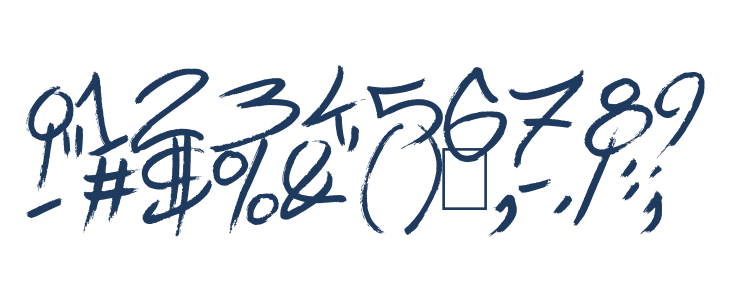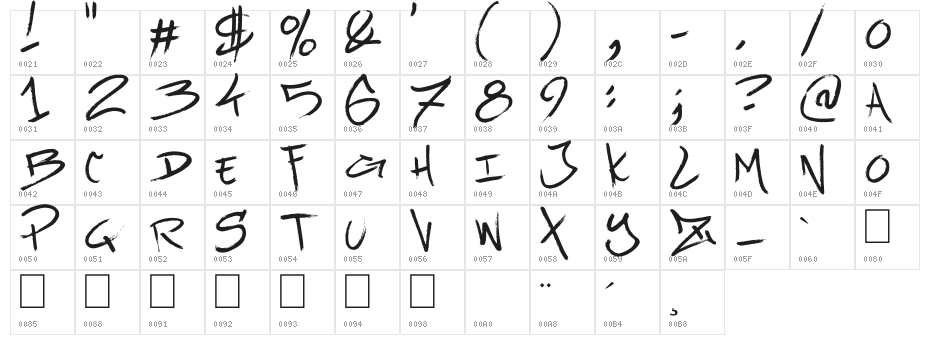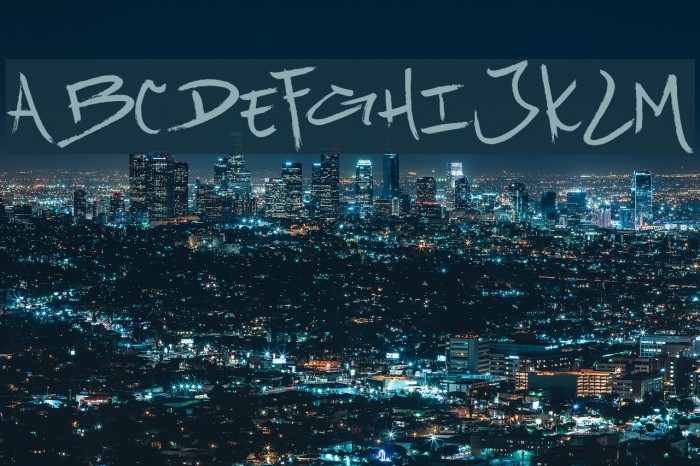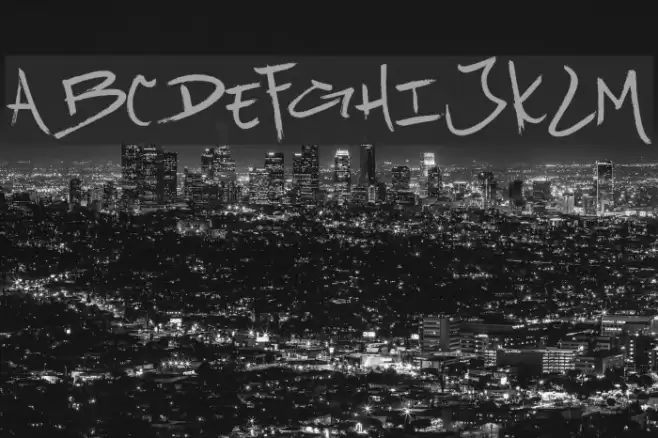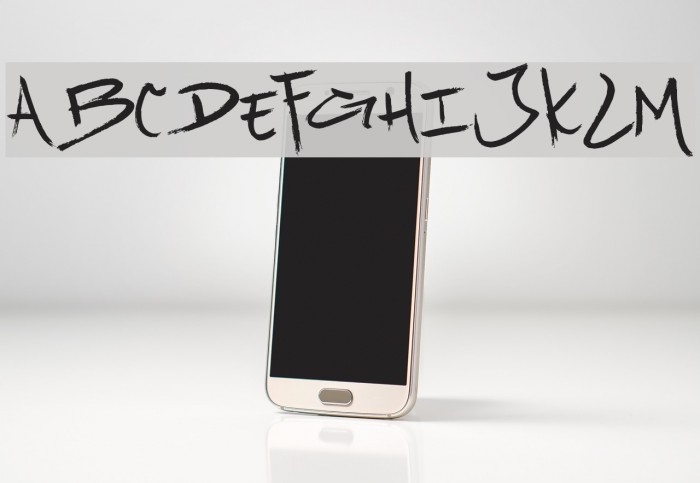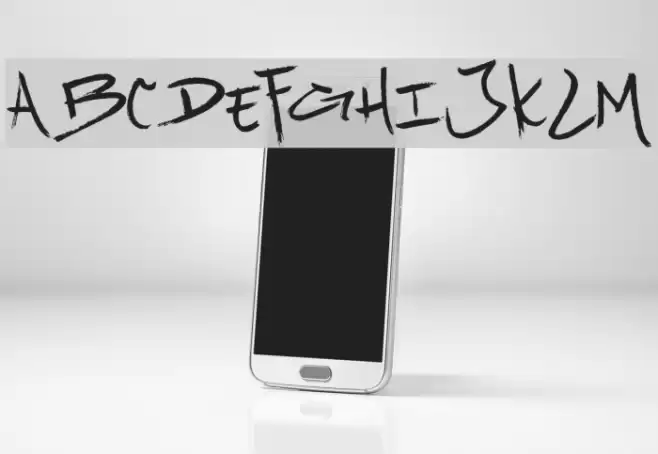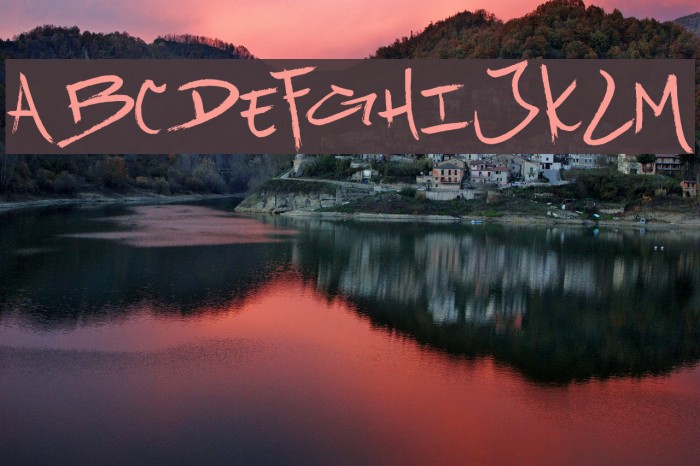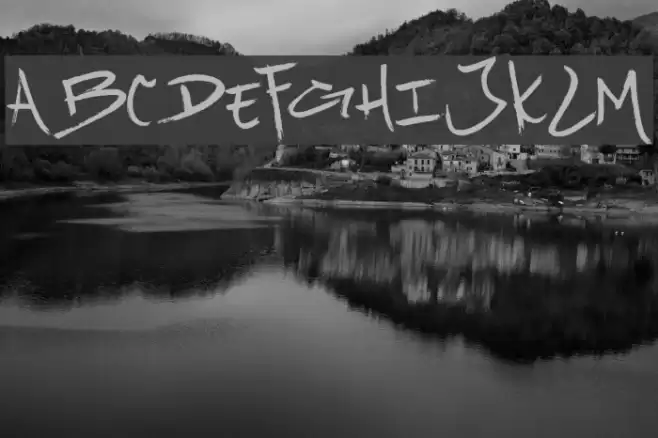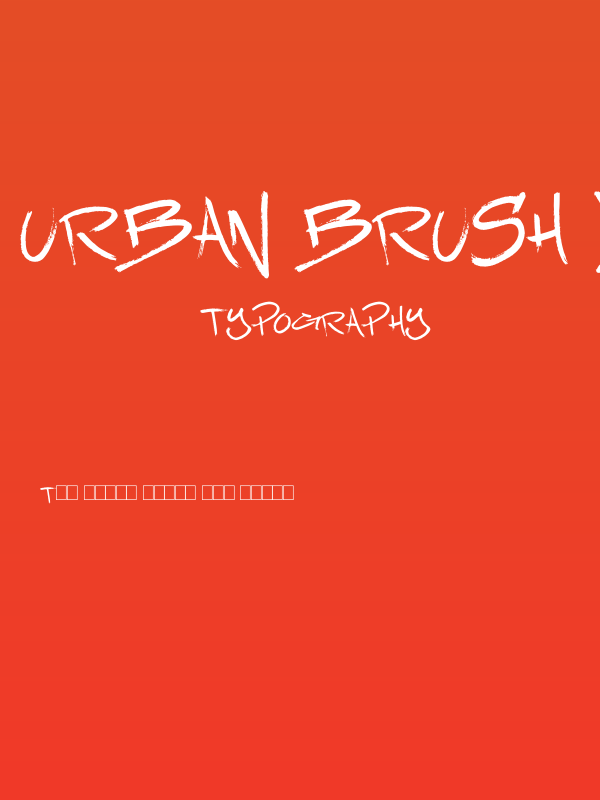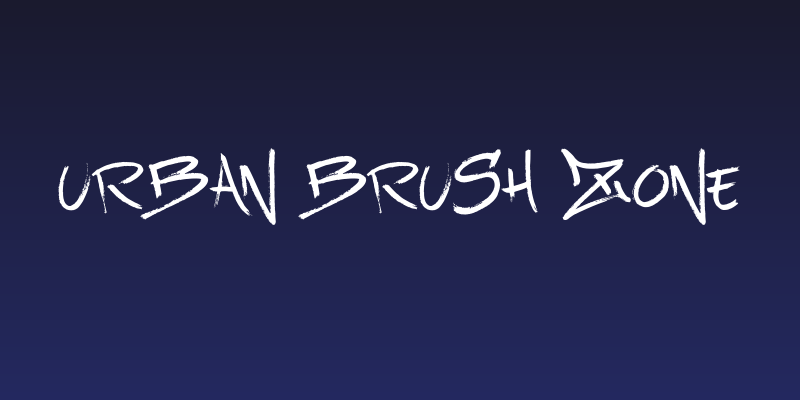
Urban Brush Zone Font
Urban Brush Zone Description
This font exudes a dynamic and energetic vibe with its brush-like strokes and irregular forms. Each character appears as if it has been painted with a swift, confident hand, giving it a raw and expressive quality. The letters are bold and slightly slanted, adding to the sense of movement and spontaneity. The uppercase and lowercase letters maintain a consistent style, while the numerals and special characters integrate seamlessly with the overall aesthetic. This font is perfect for projects that require a touch of urban flair and artistic expression.
| Proposed Projects | Ideal for street art designs, music album covers, event posters, and branding for creative industries. |